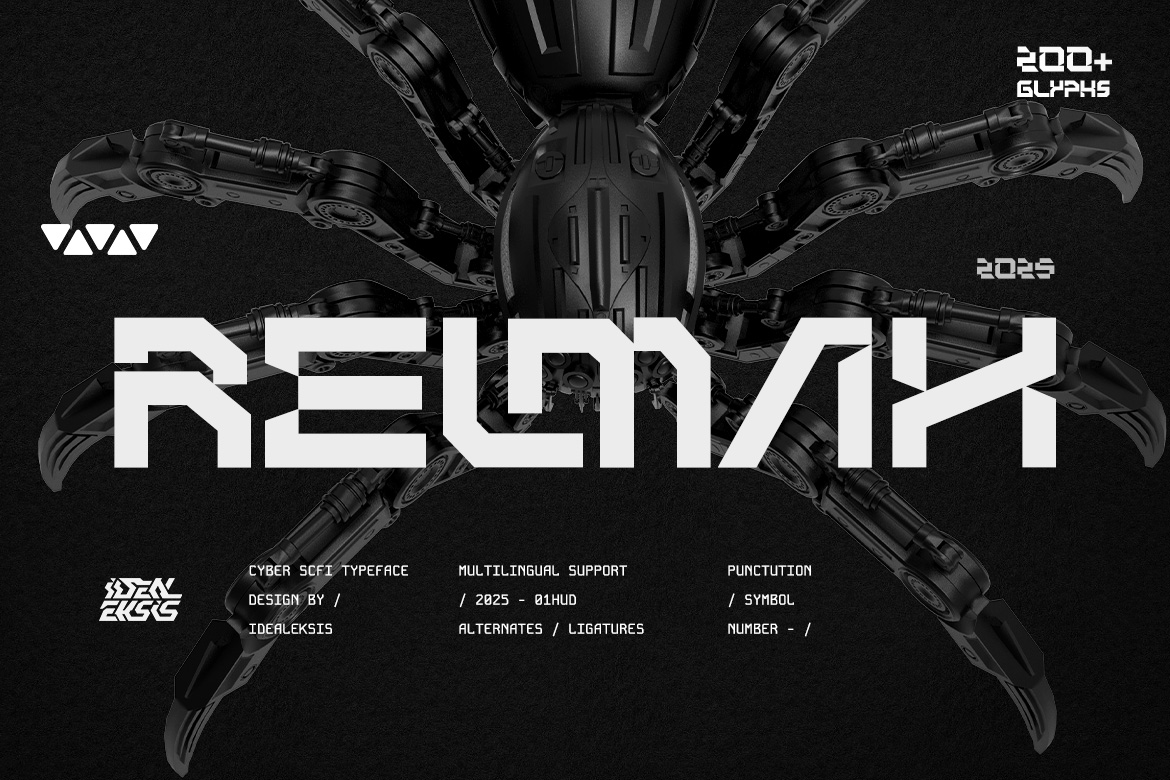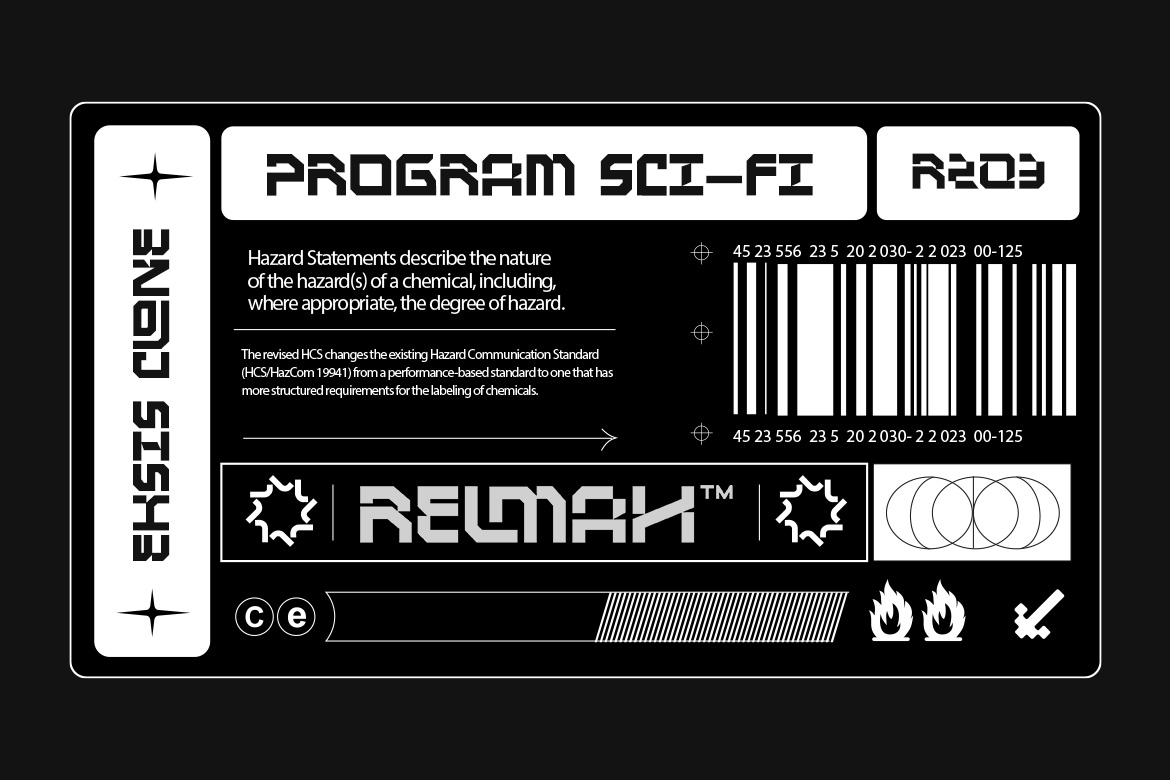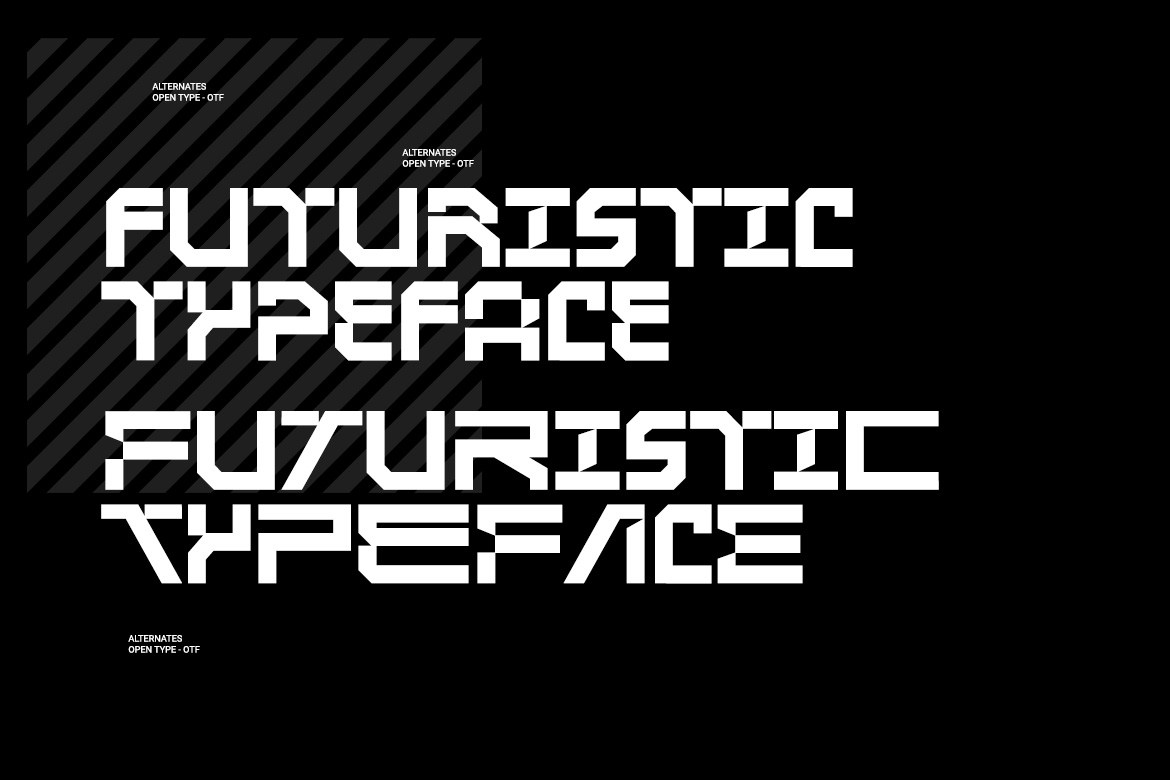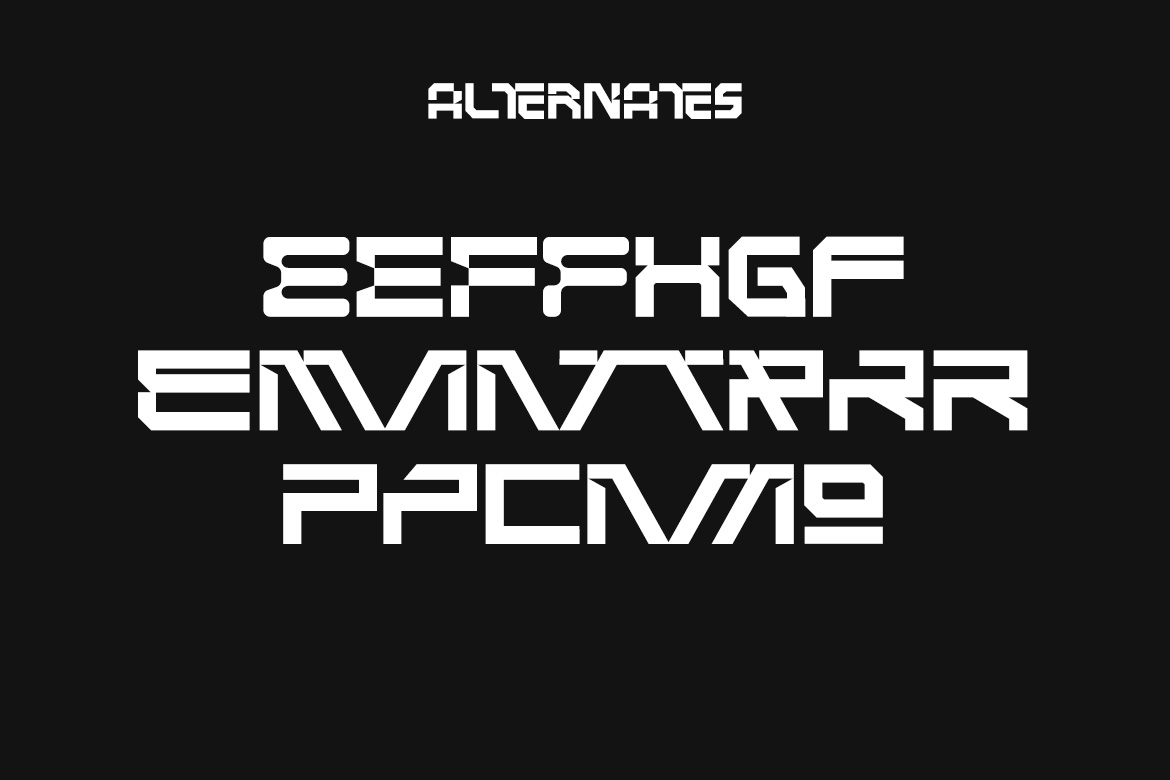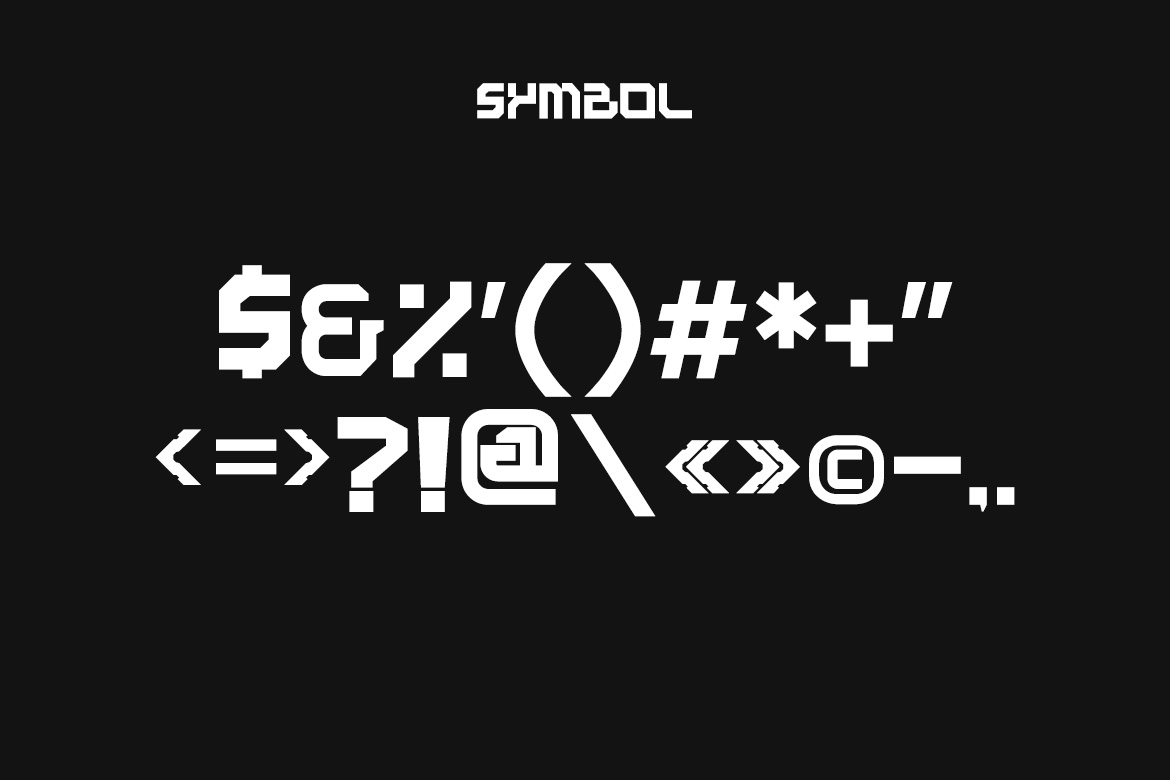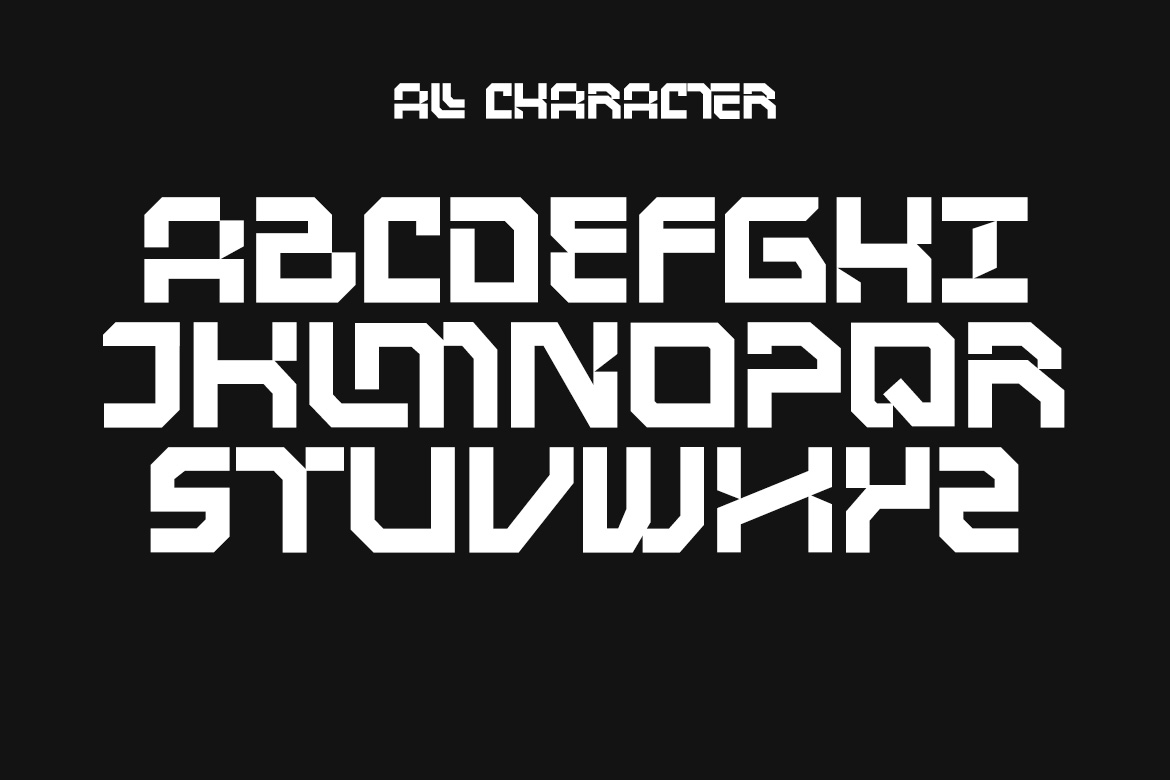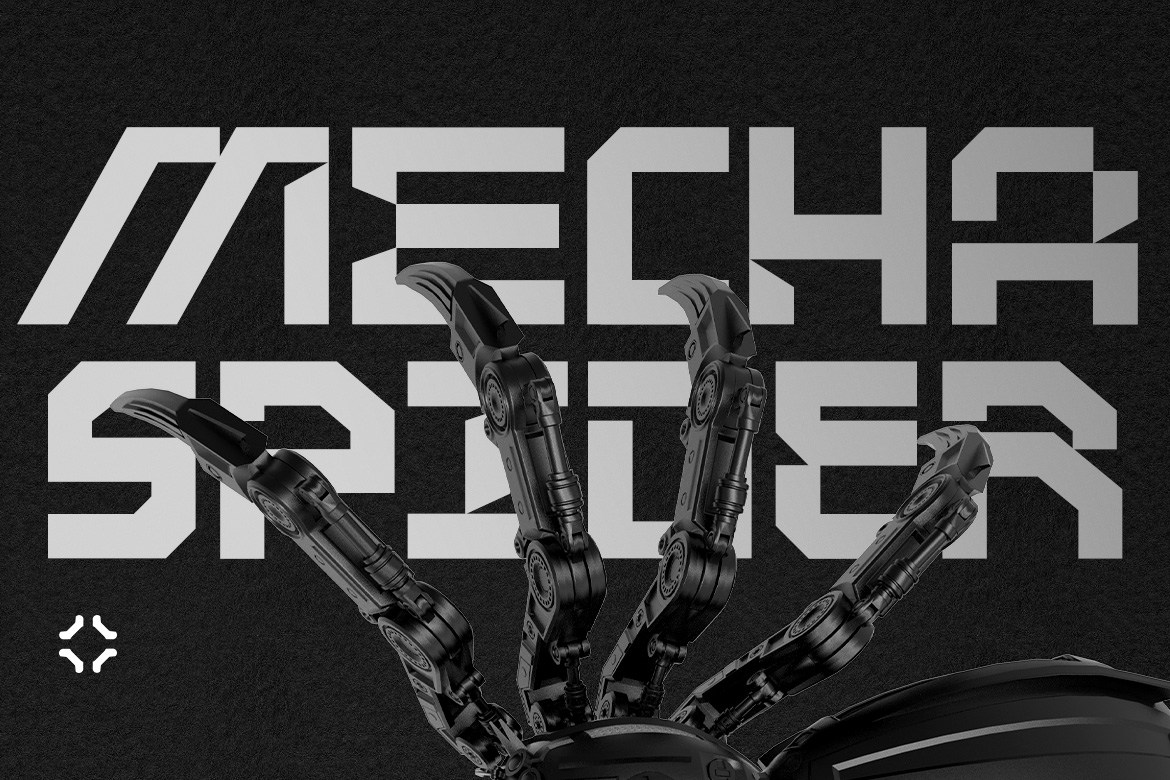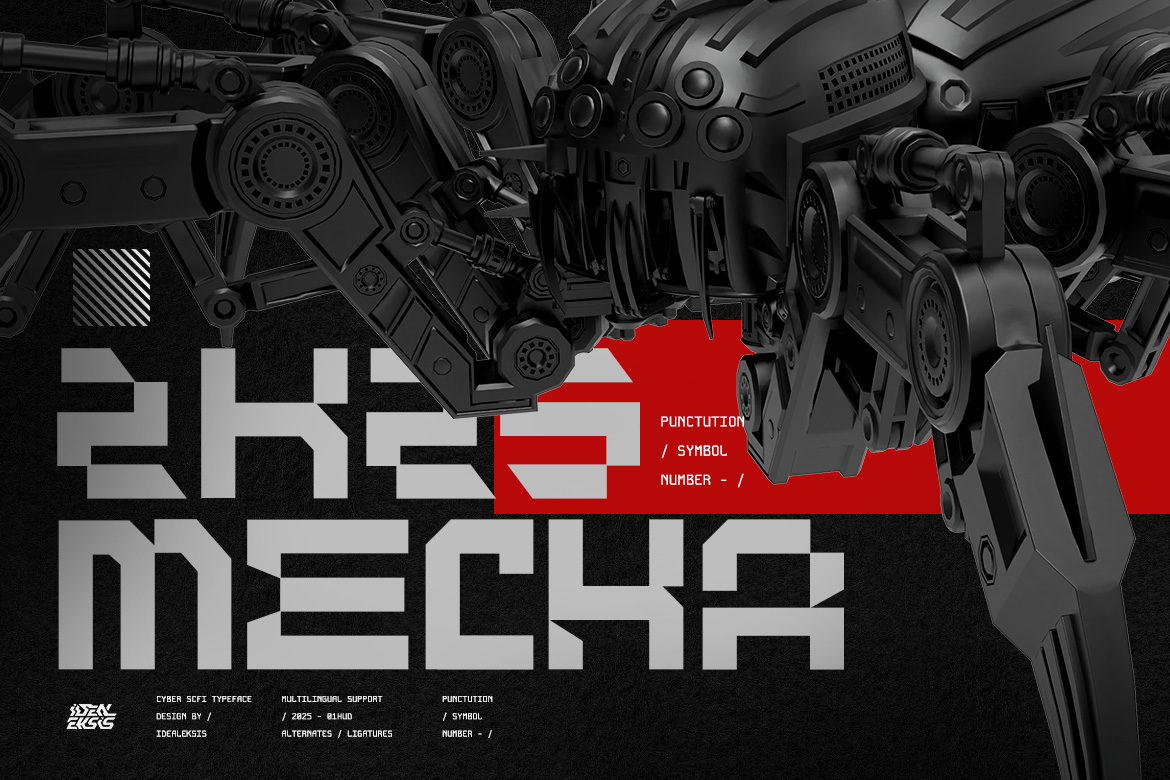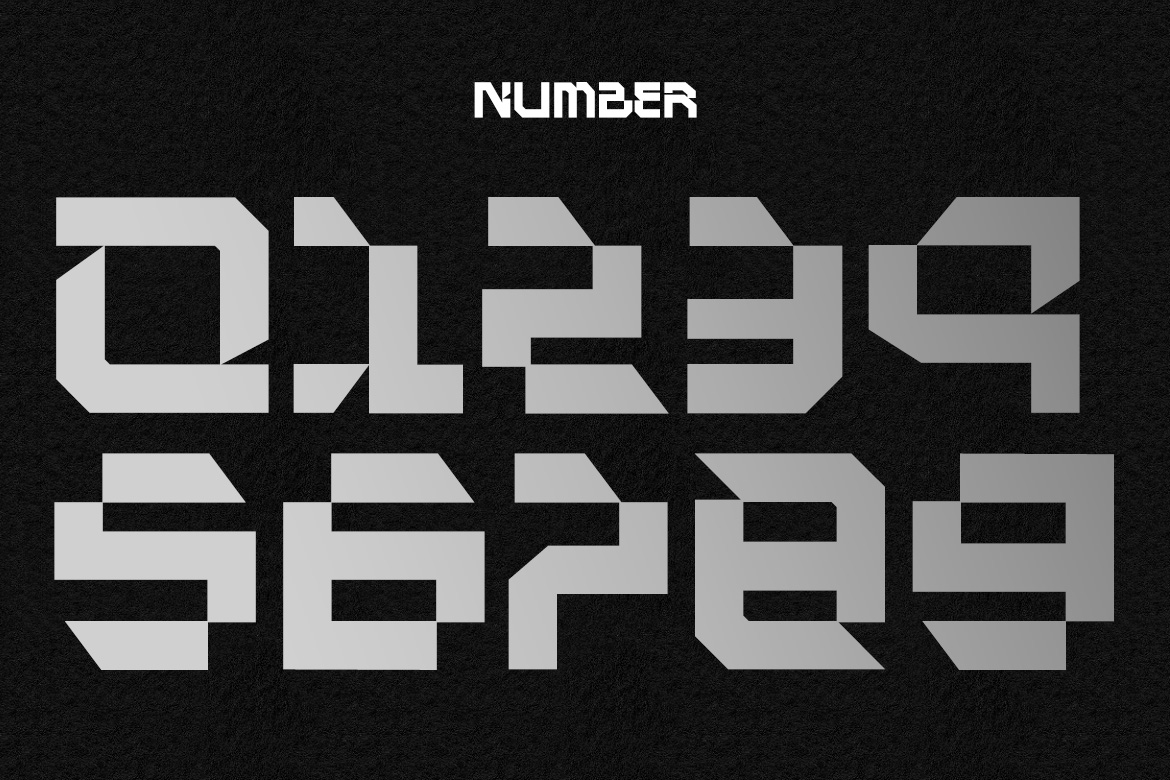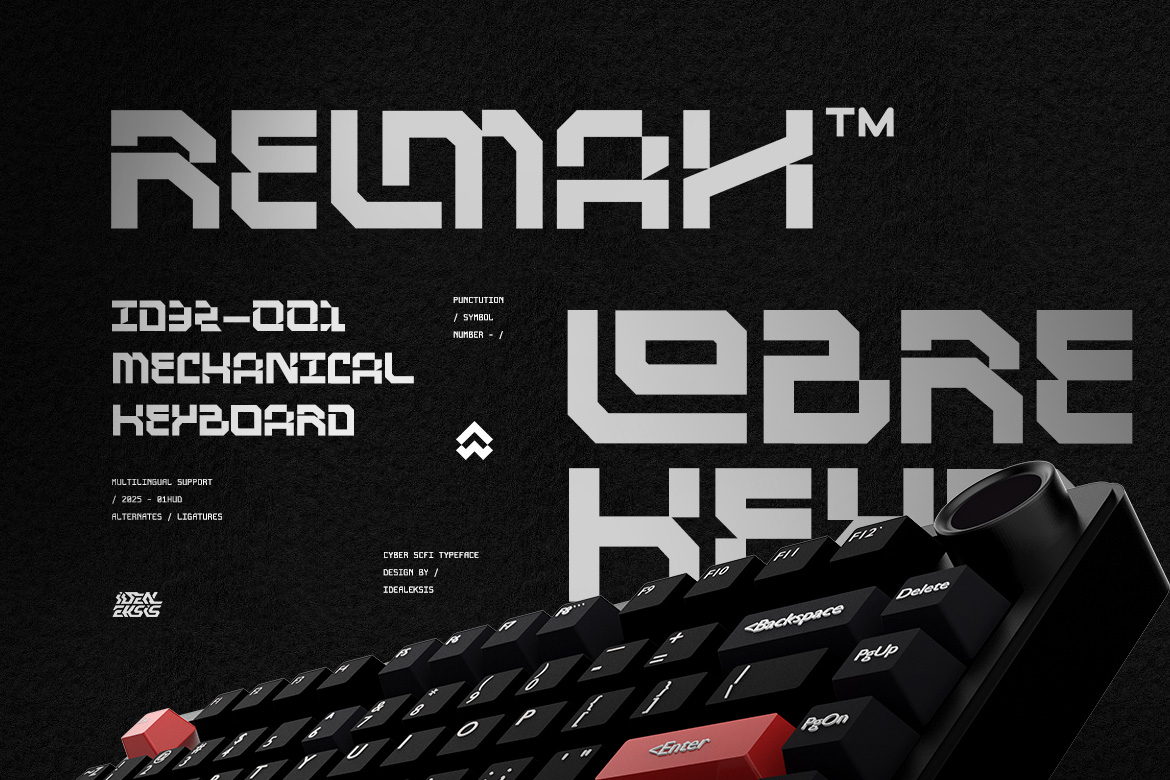
Relmax
Relmax is a futuristic cyber display with sharp geometric cuts and high-tech styling. Perfect for sci-fi titles, tech branding, gaming interfaces, posters, and digital projects that need a strong, robotic, and modern aesthetic. In Package : OTF TTF WOFF WOFF2 Feature : Uppercase (ALL CAPS) Numerals Alternates Ligatures Punctuation Easy To Install